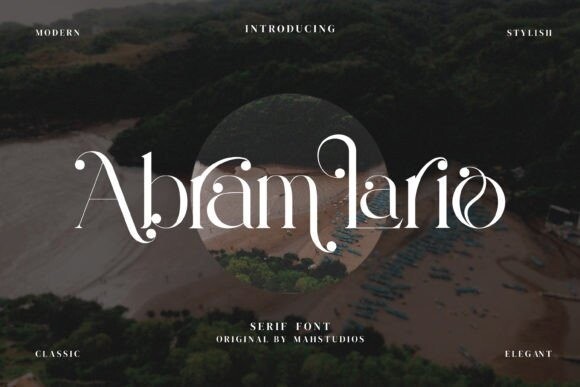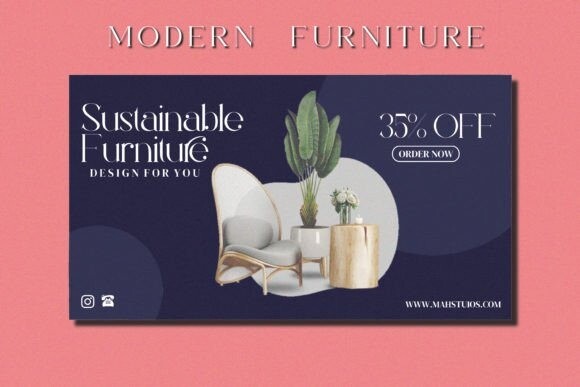
Abram Lario Font
Abram Lario is a classy and stylish serif font that exudes elegance and refinement. Add it to your exquisite projects and you will be amazed by the generated outcome! Abram Lario is PUA encoded which means you can access all the glyphs and ligatures with ease!